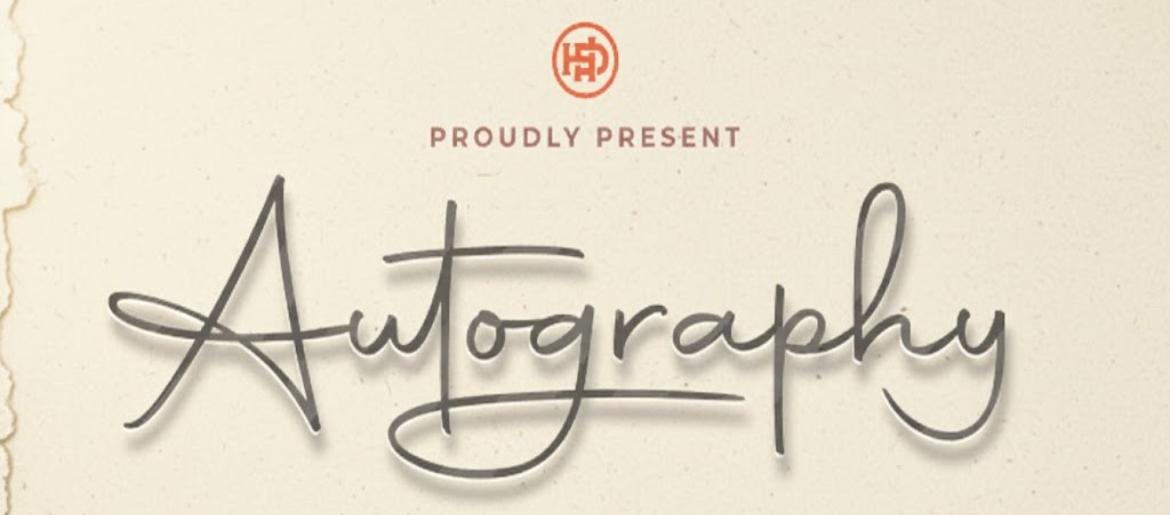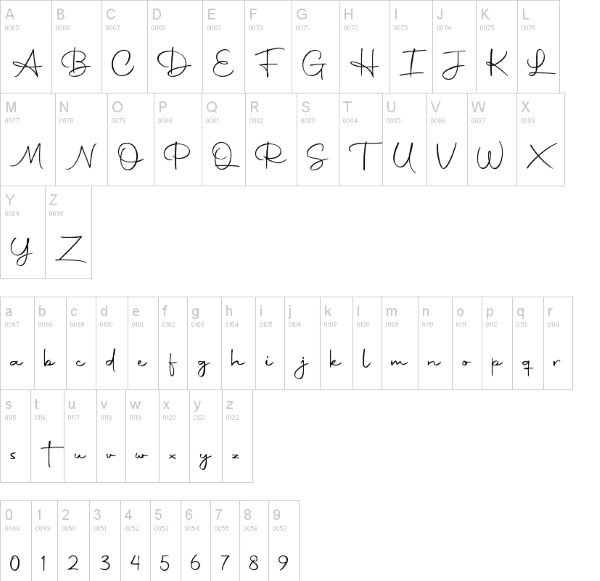
Autography Font
Autography Font is a sleek, handwritten signature-style typeface with smooth, flowing strokes and a modern, elegant feel. Designed to look like a real personal autograph, it’s perfect for logos, photography watermarks, branding, social media, and stylish quotes. Autography adds authenticity, sophistication, and a refined handwritten touch to any design.
➤ Font Name: Autography
➤ Designer: Hendra Pratama
➤ Style: Handwritten